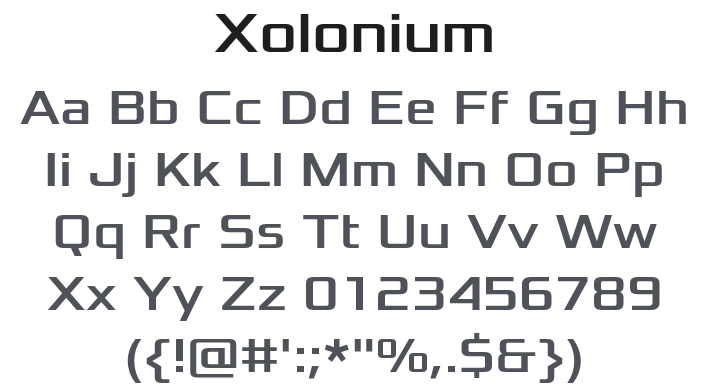
Xolonium Font Family
About Xolonium
Xolonium originated as a custom font family for the futuristic open-source game Xonotic. It supports Latin, Cyrillic, and Greek scripts, and includes various pictograms to embellish game messages.